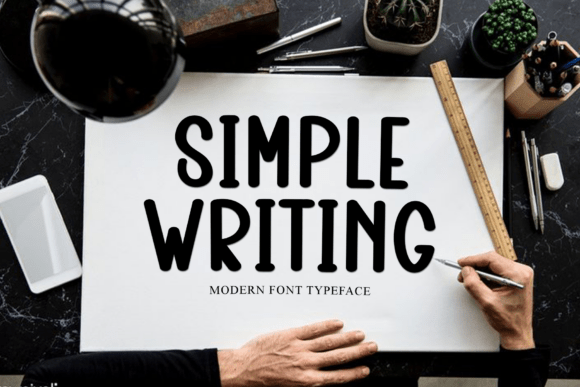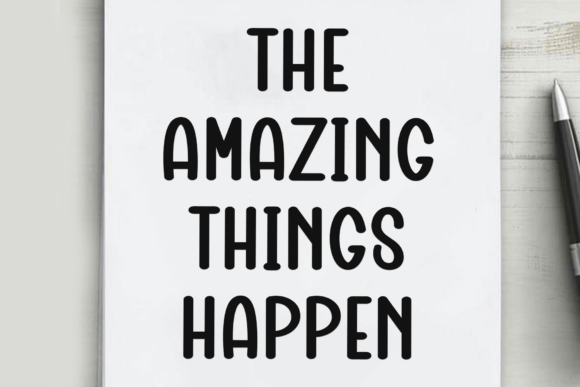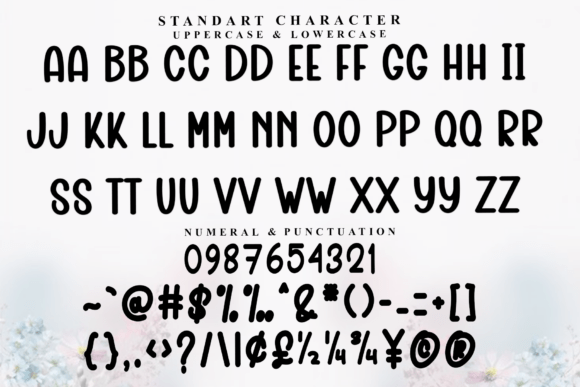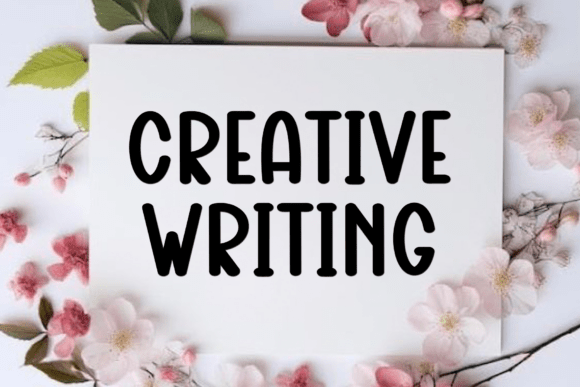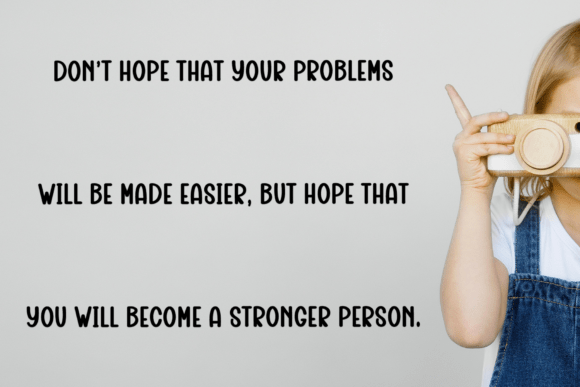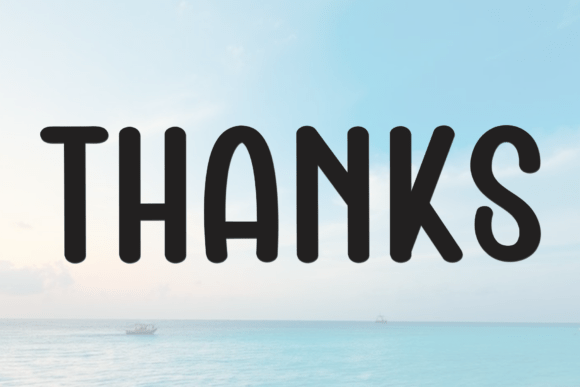
Introduction to Good Options Font
Good Options is a festive and merry typeface that captures the spirit of the holiday season.
Good Options Font offers exceptional quality and versatility, making it a valuable addition to your design toolkit. Whether you’re creating for personal projects or commercial use, Good Options Font delivers professional results.